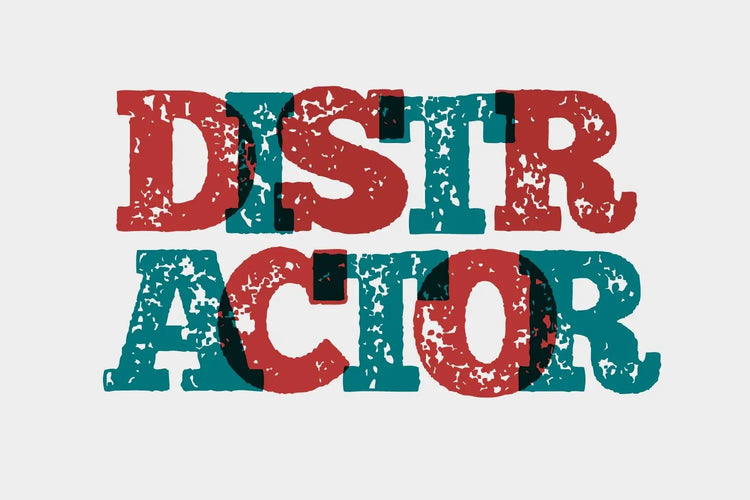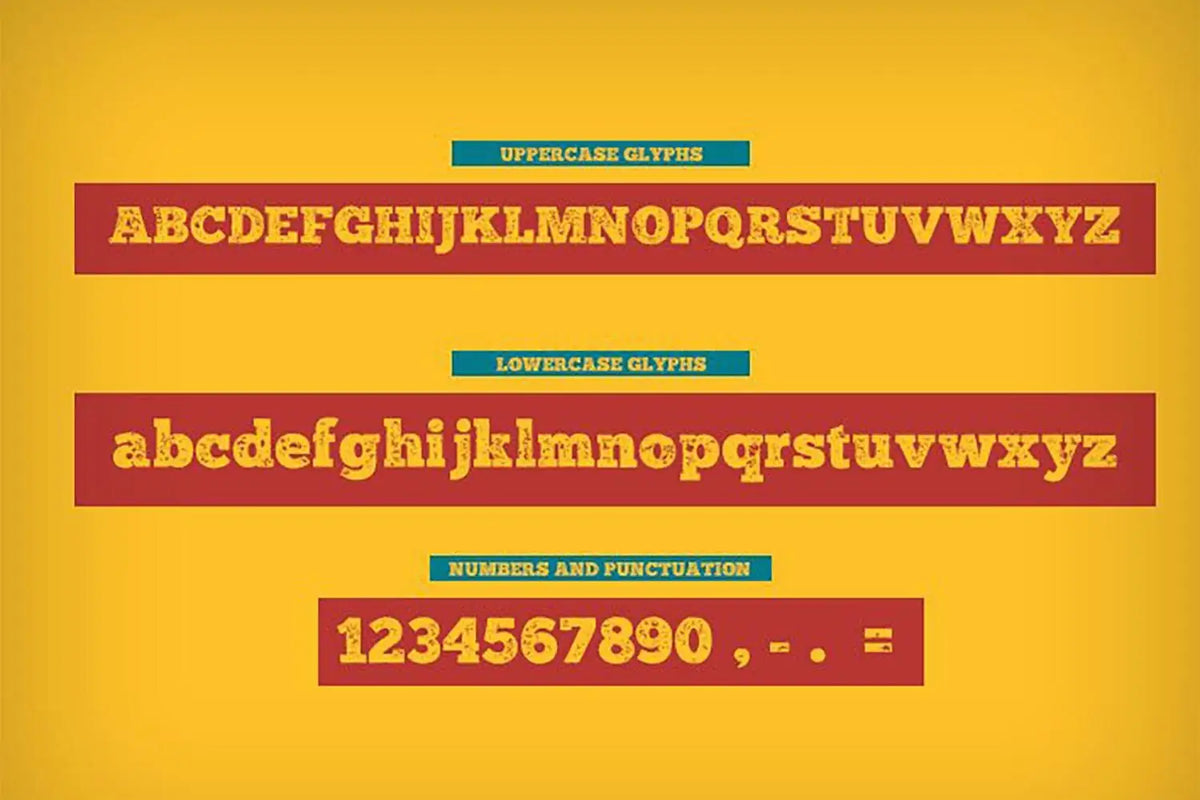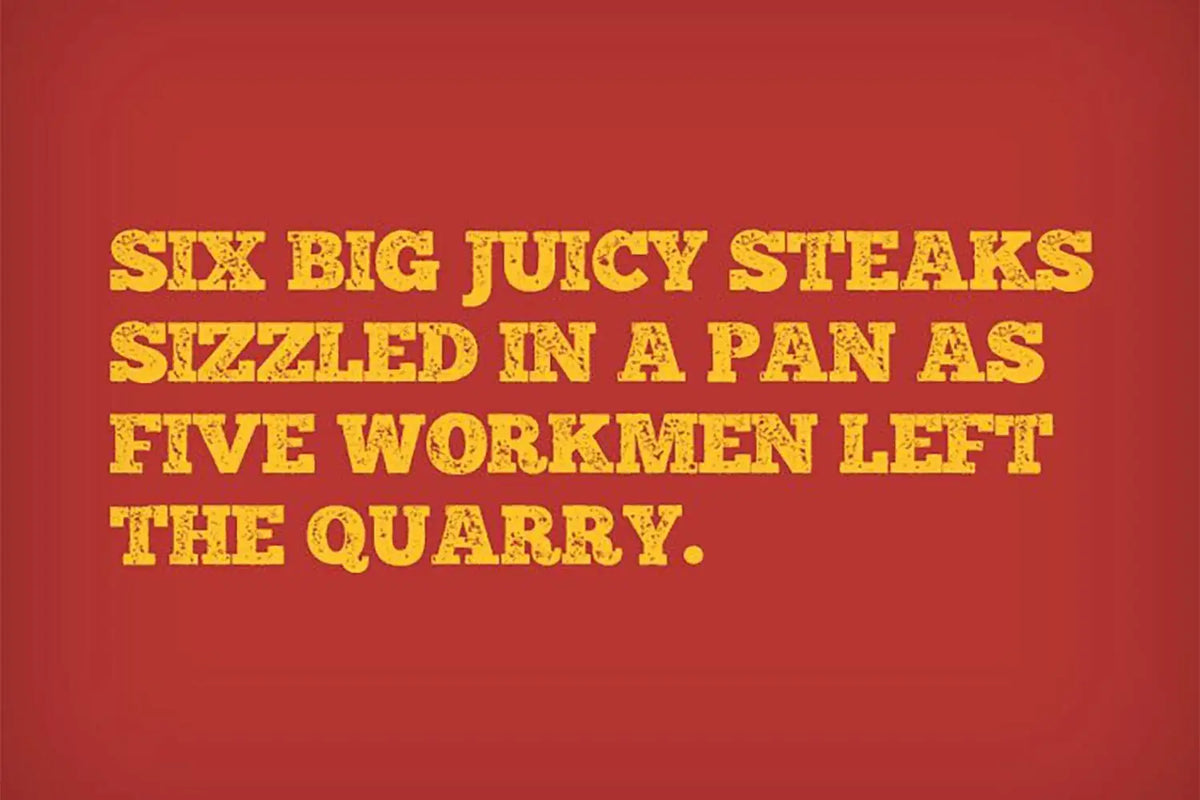
Distractor — Distressed Slab Serif Display Font
About Distractor
The Distractor typeface is a unique design that seamlessly combines the rustic charm of wood type with the elegance of letterpress fonts, evoking the timeless beauty of vintage printing techniques.
Distractor font, with its bold and distressed display style, adds a tactile quality to your work, as if it has been lovingly crafted by hand, drawing inspiration from the rich history of old letterpress styles and the art of hand-printed lettering.
There's something truly magical about that worn ink style, providing a glimpse into the past; this font brings that vintage charm into your designs.